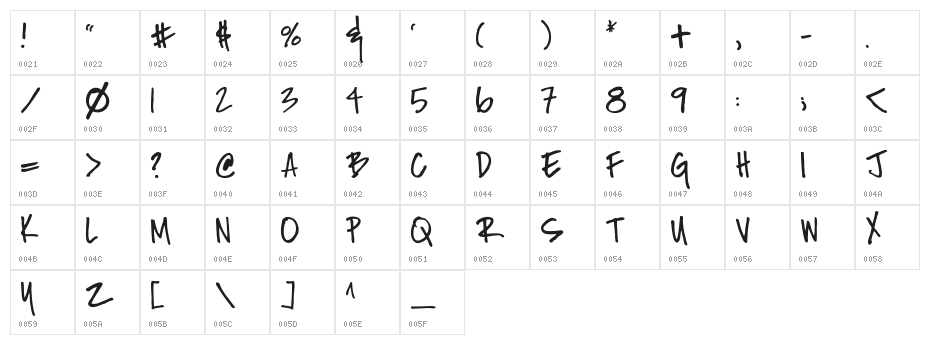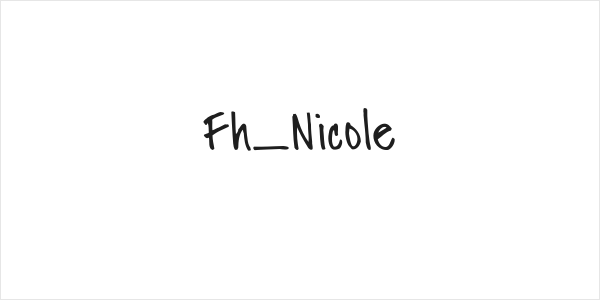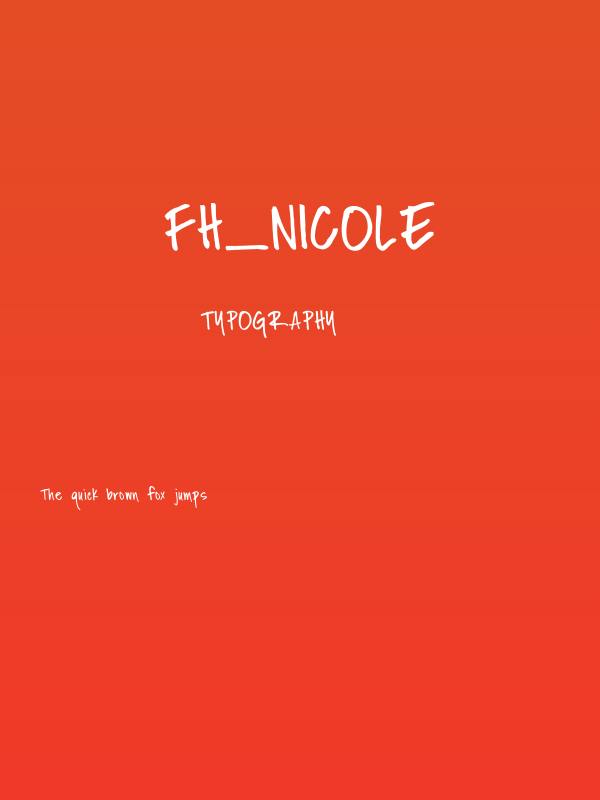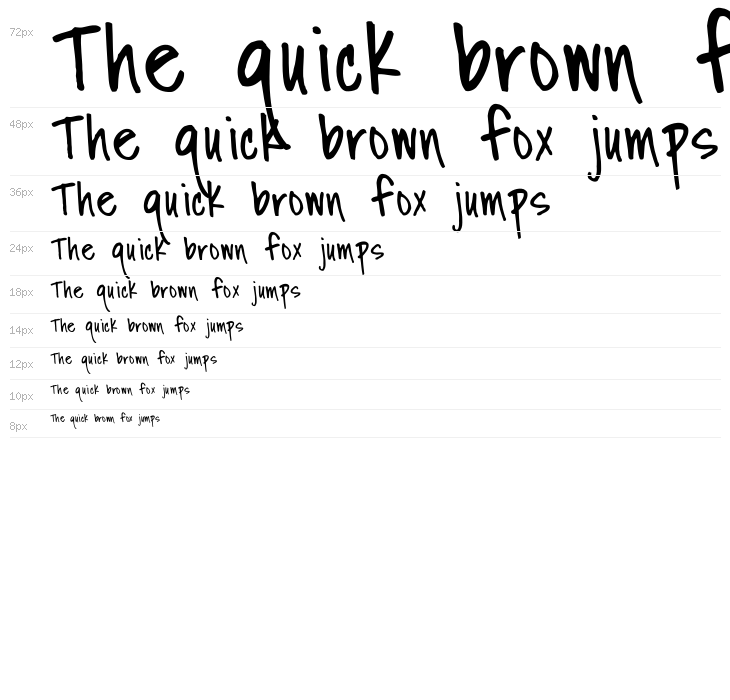
Fh_Nicole Font
Fh_Nicole Description
This font features a lively and dynamic handwritten style, characterized by its bold and slightly irregular strokes. The uppercase letters are tall and slightly slanted, giving a sense of movement and energy. The lowercase letters maintain a consistent flow, with some characters like 'g' and 'y' having distinctive loops. Numbers are clear and legible, with a playful touch, while the special characters are creatively styled to match the overall aesthetic. The font's informal and casual appearance makes it suitable for projects that require a personal and approachable feel.